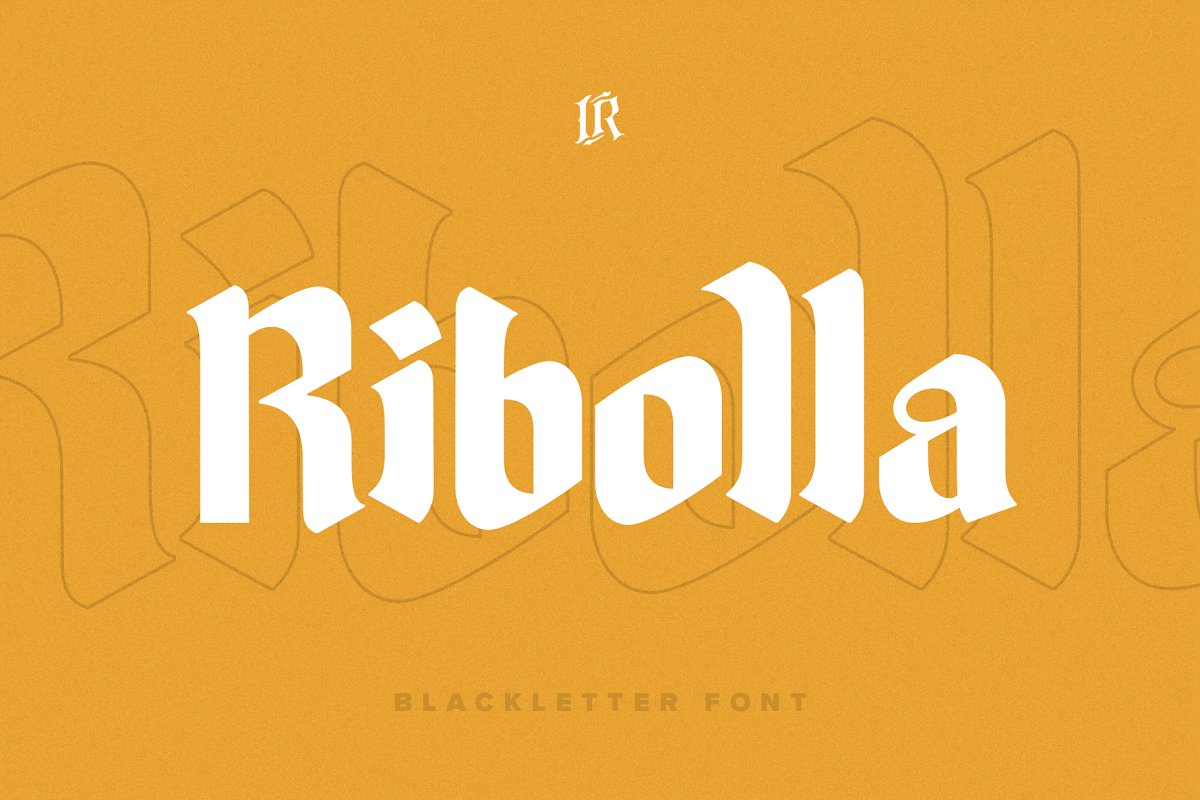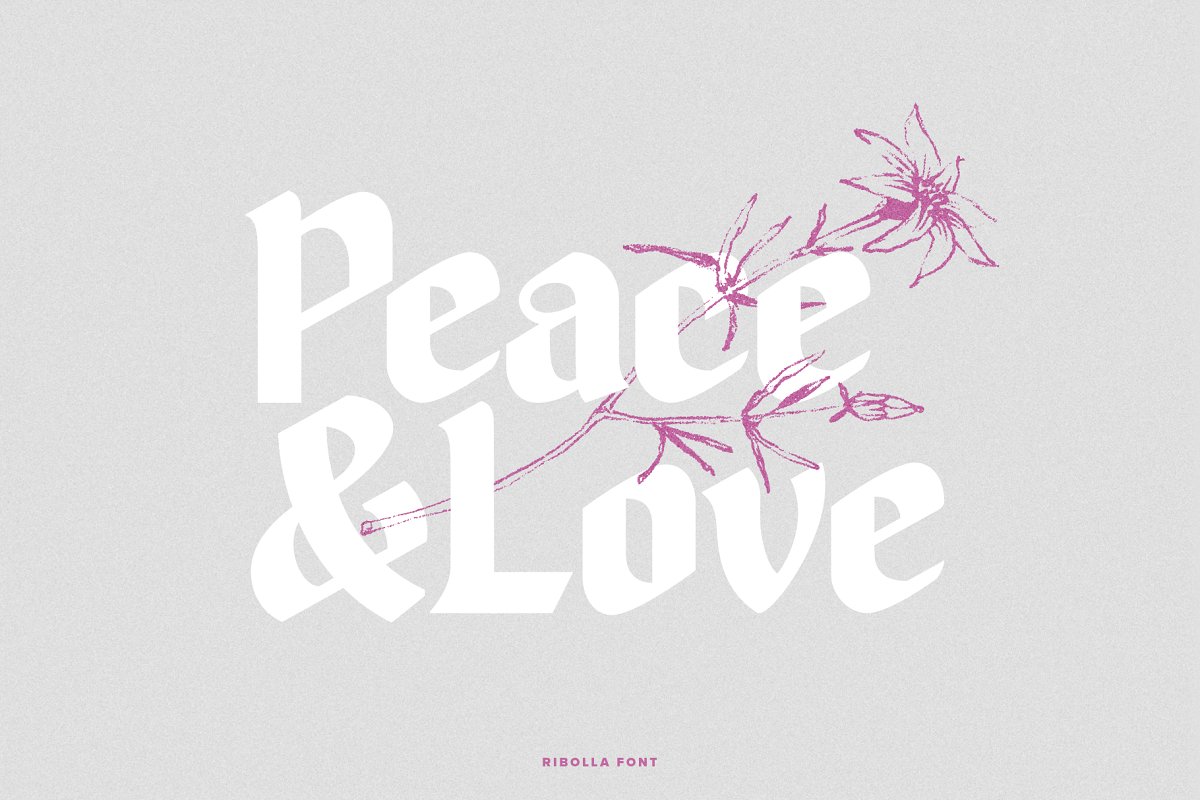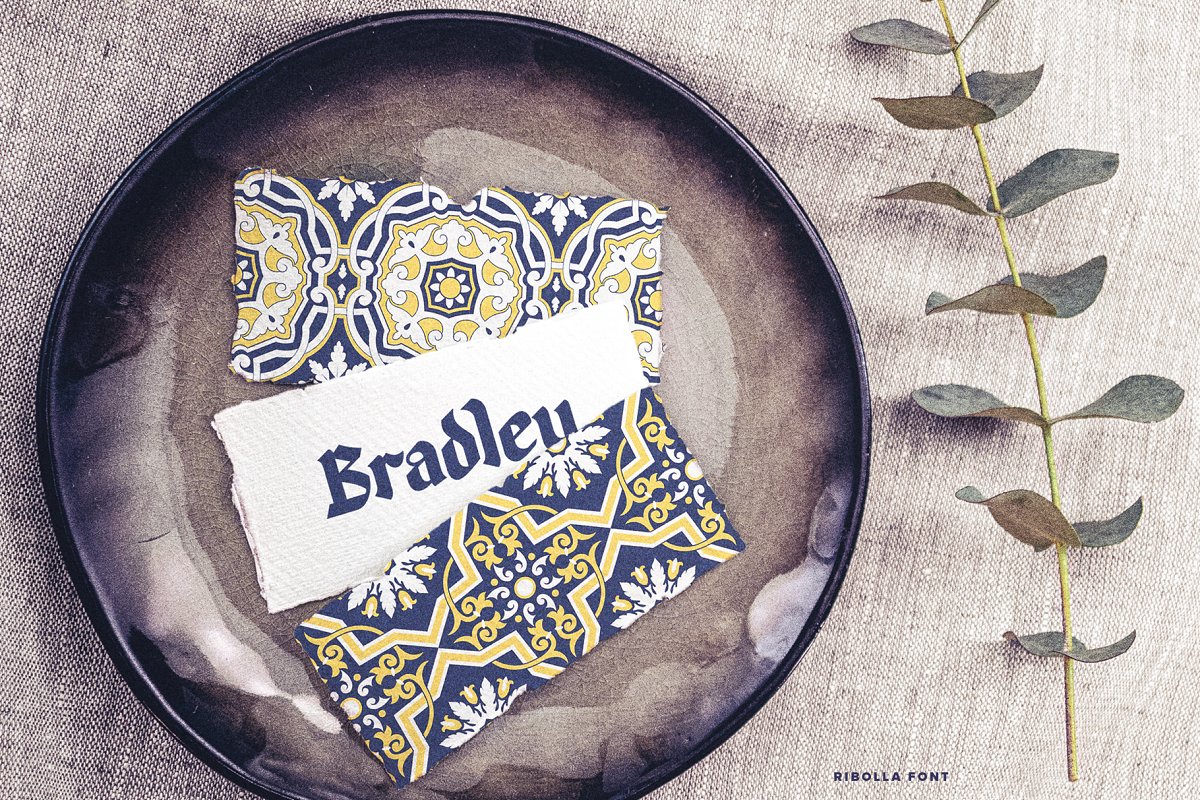
About the Ribolla Font
Ribolla is a stylish blackletter font inspired by old gothic typography, It looks amazing at display sizes and is easily readable in text size, Ribolla Font comes with multilingual support and standard ligatures, Ribolla is a blackletter font made mainly for headlines, titles, and other short texts and is well-suited for advertising, gothic mood board, branding, logotypes, packaging, titles, editorial design and modern and gothic design